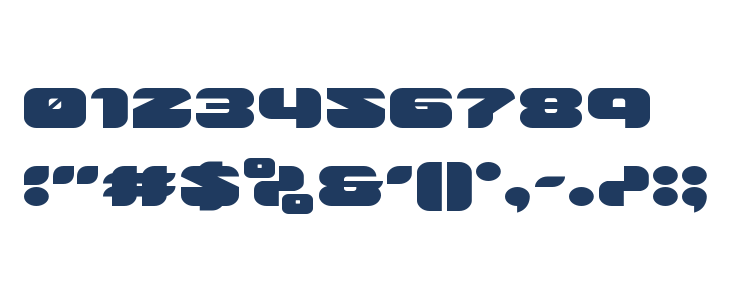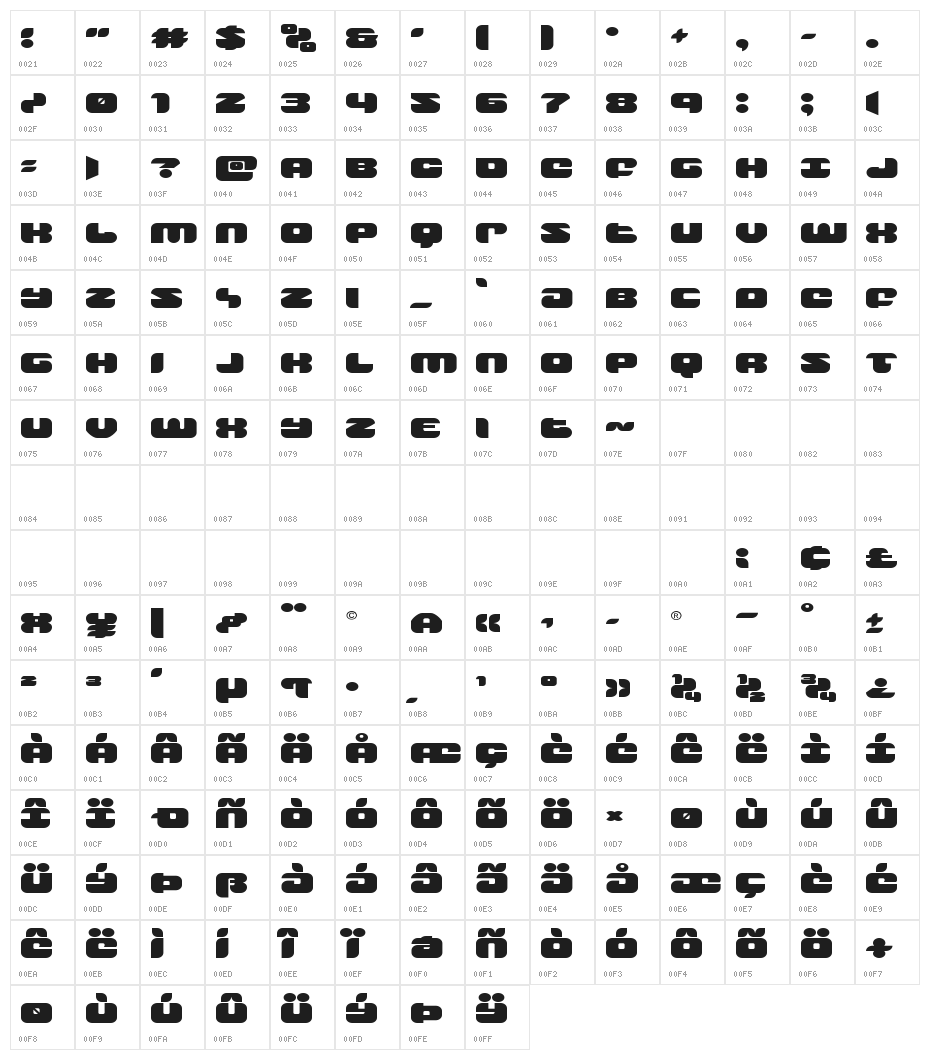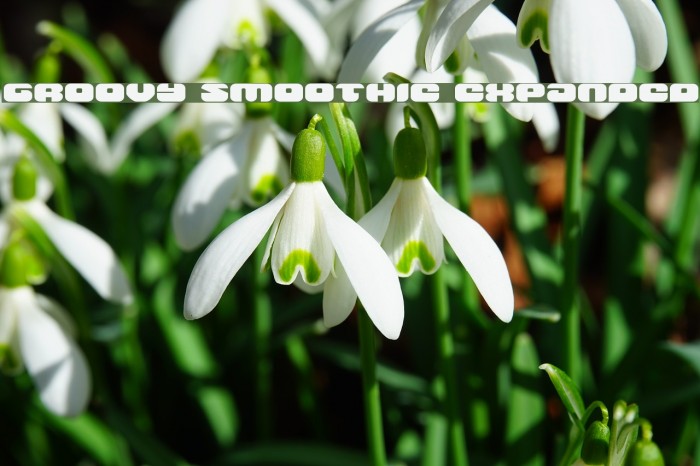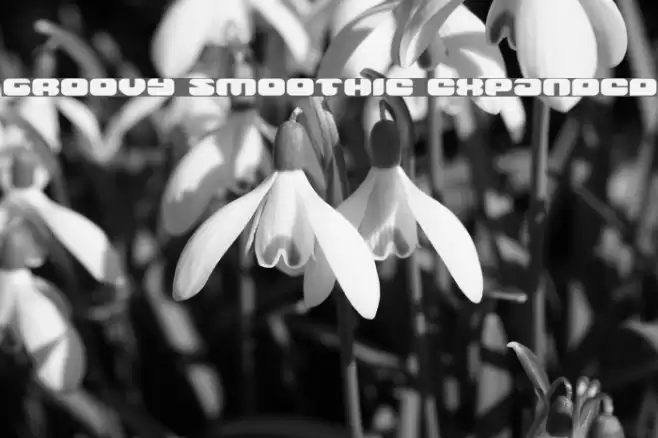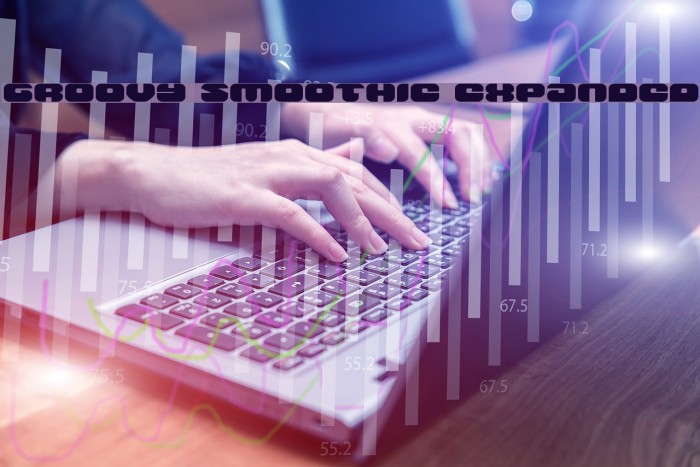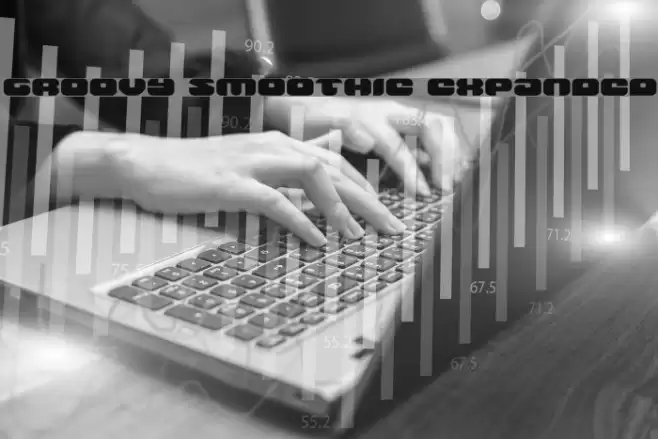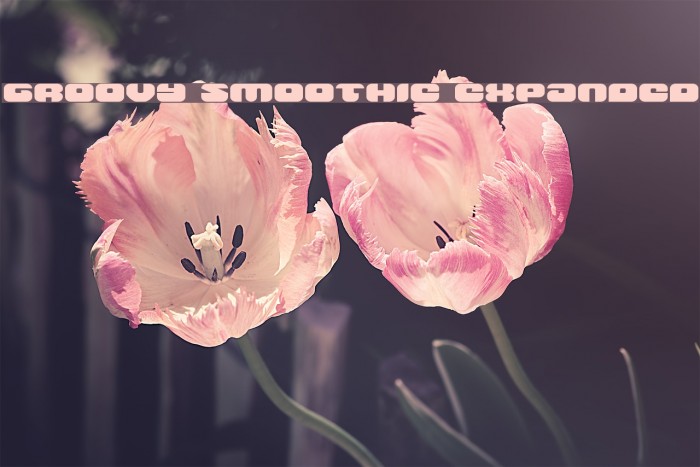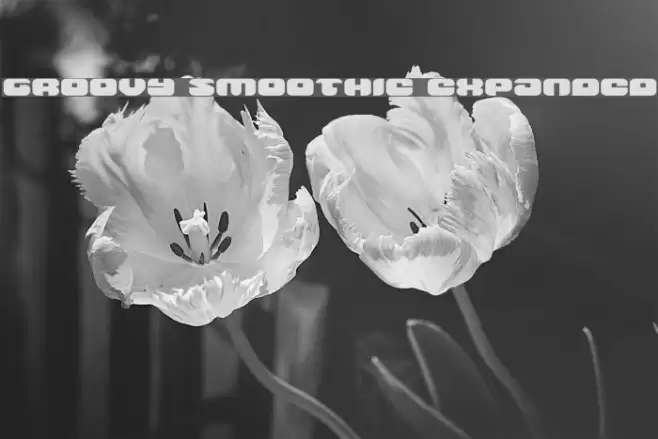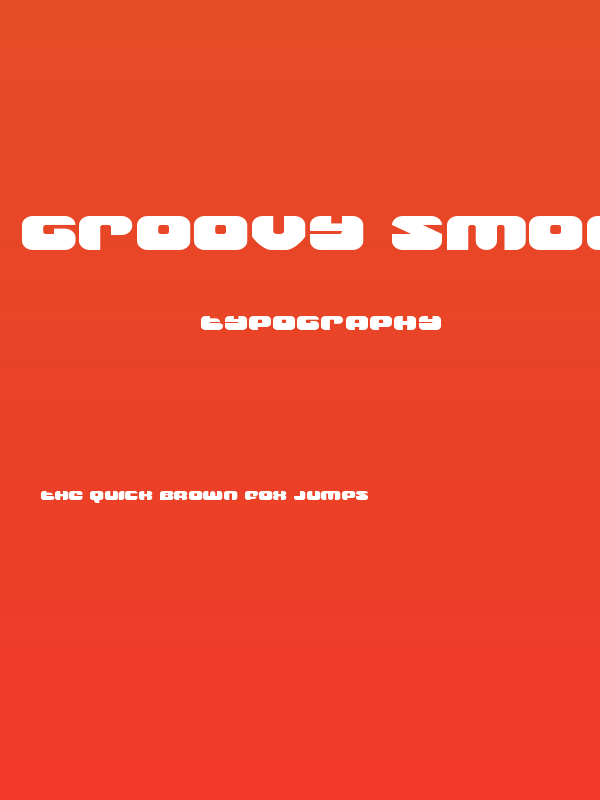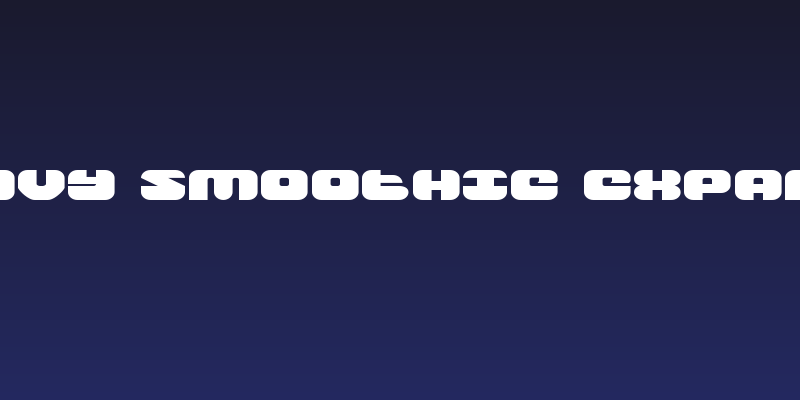
Groovy Smoothie Expanded Font
Groovy Smoothie Expanded Description
This font features a bold and playful design with rounded edges and a smooth, flowing style. The characters are wide and have a uniform thickness, giving them a modern and approachable appearance. The font exudes a sense of fun and creativity, making it ideal for projects that require a lively and energetic vibe. Its expanded width and consistent stroke weight contribute to its distinctive look, while the rounded forms ensure readability and a friendly tone.
| Proposed Projects | Perfect for branding, posters, children's books, and creative advertising campaigns. |